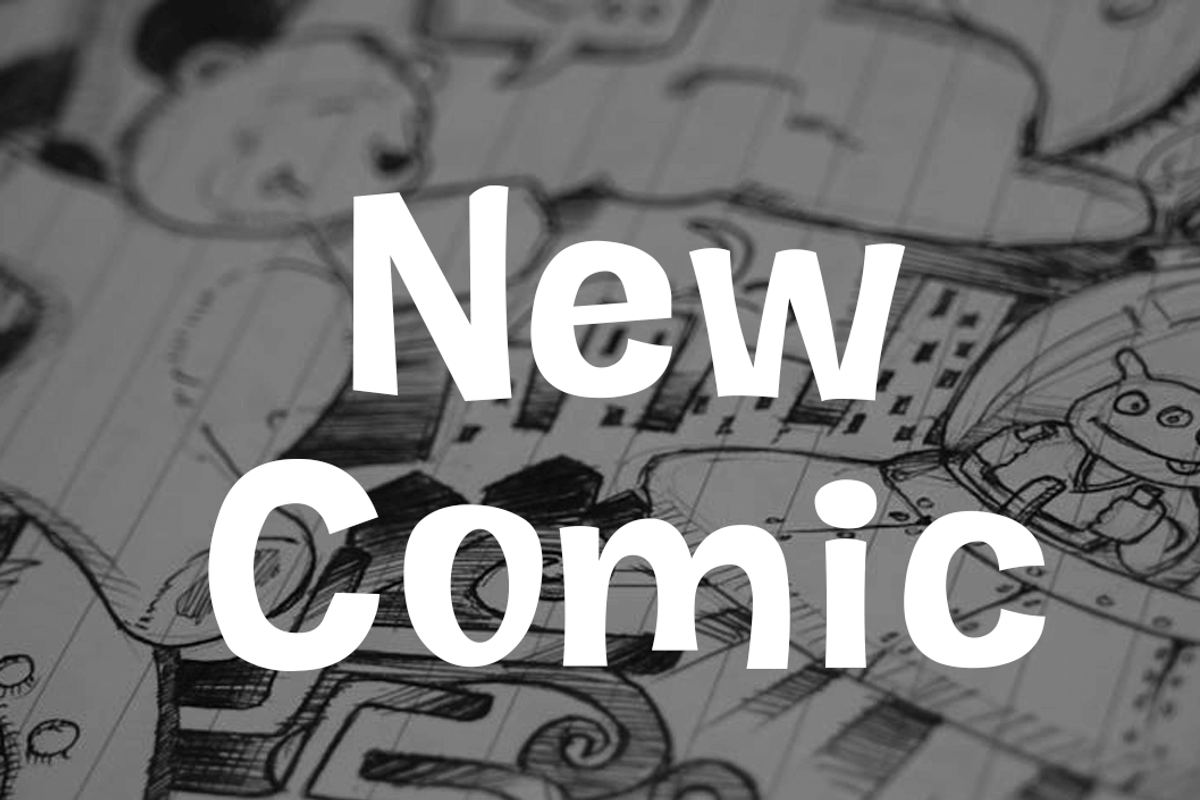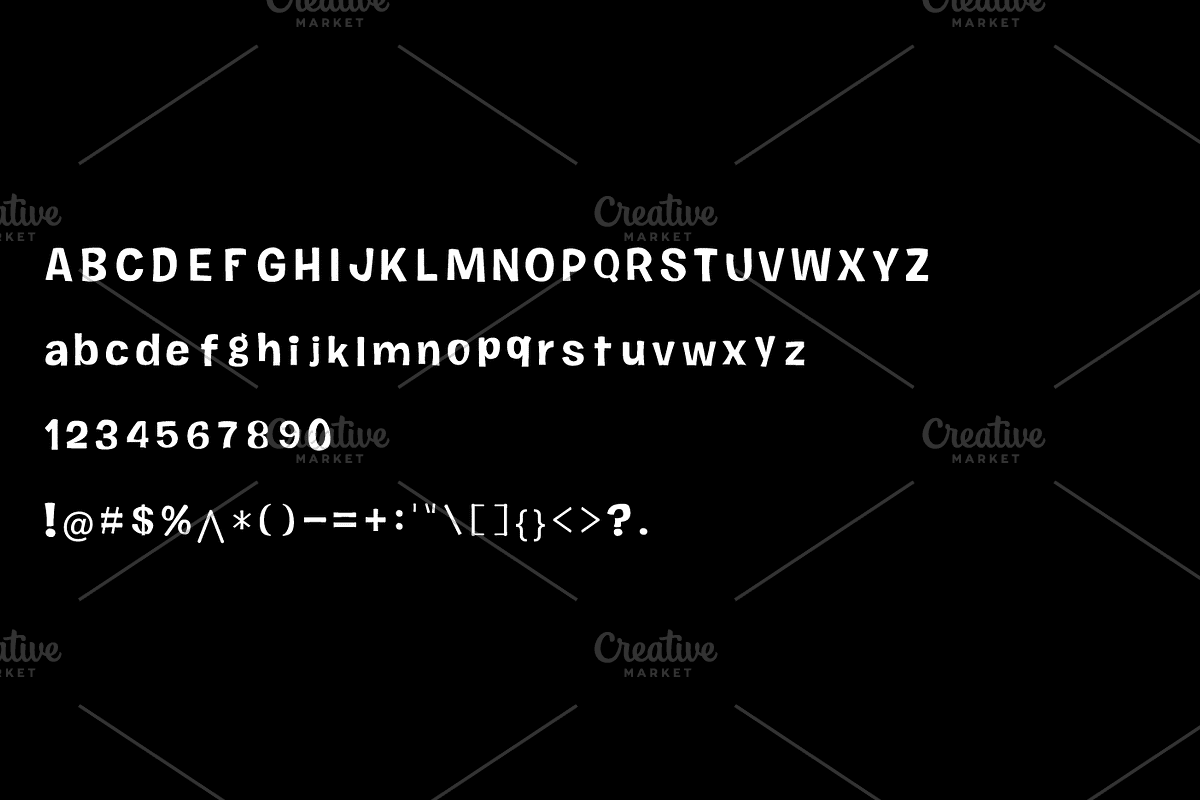
New Comic
New Comic Font: Playful, Bold, and Full of Adventure
Bring a lively spark to your designs with New Comic, a playful sans serif font inspired by comic book charm and gaming excitement. Its casual, approachable style makes it perfect for projects that need to capture attention in a fun and energetic way.
Why You’ll Love It:
Comic-Inspired Whimsy: Combines bold shapes with a lighthearted vibe, perfect for comic-style designs or playful themes.
Versatile Applications: Ideal for branding, gaming content, comic-inspired artwork, and creative projects.
Energetic Personality: Infuses your words with a splash of boldness and adventure, resonating with creativity.
Transform your designs into playful masterpieces with New Comic—the font that adds fun, bold personality to any project.